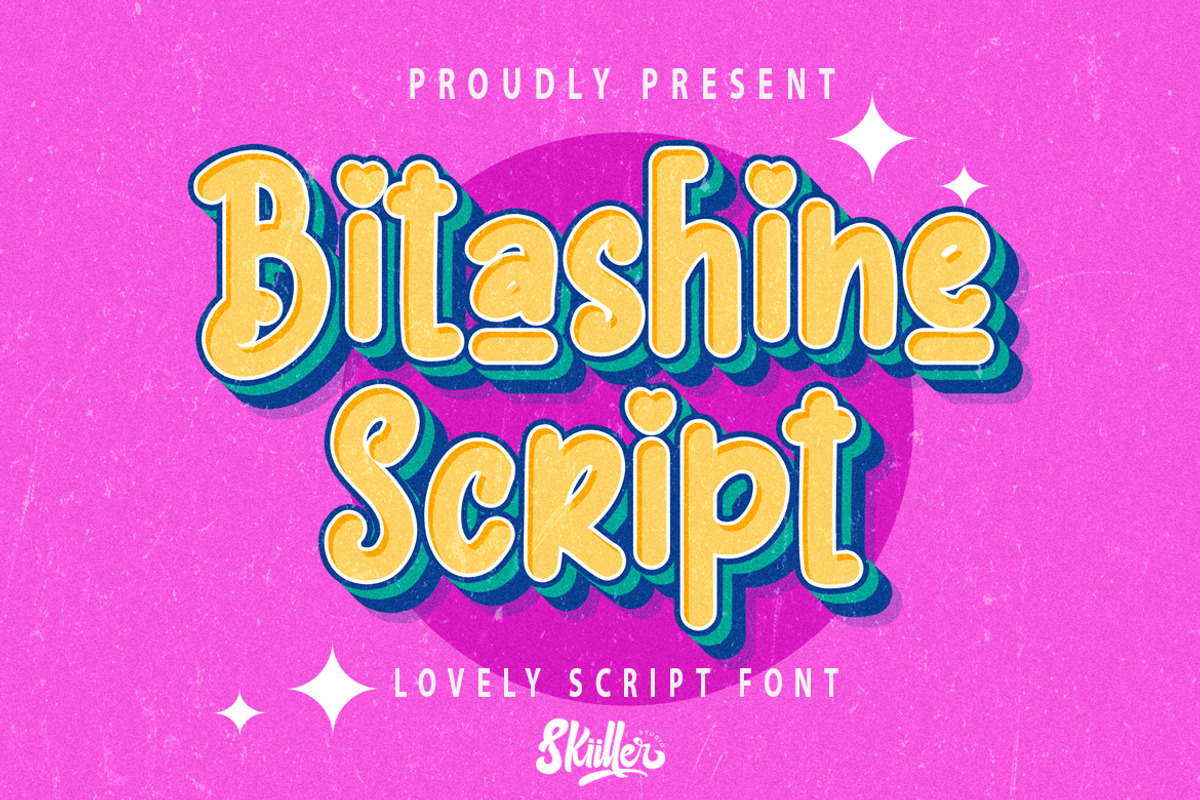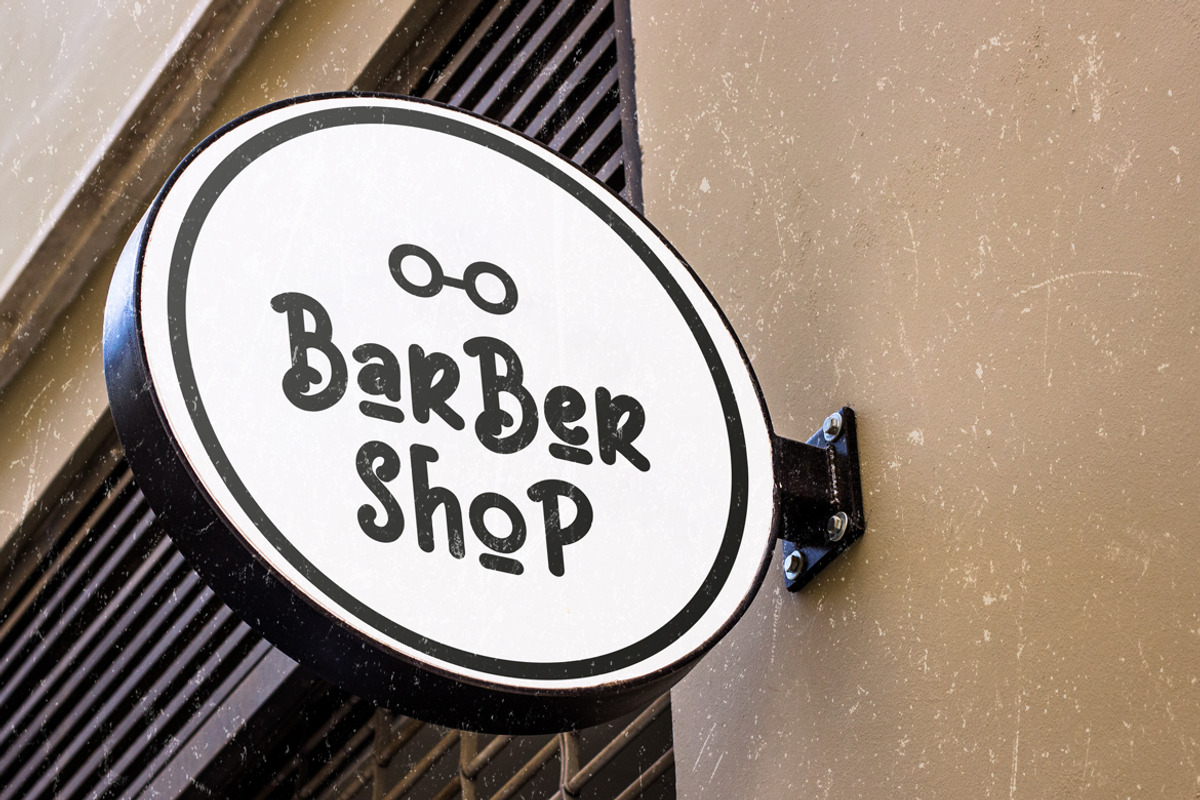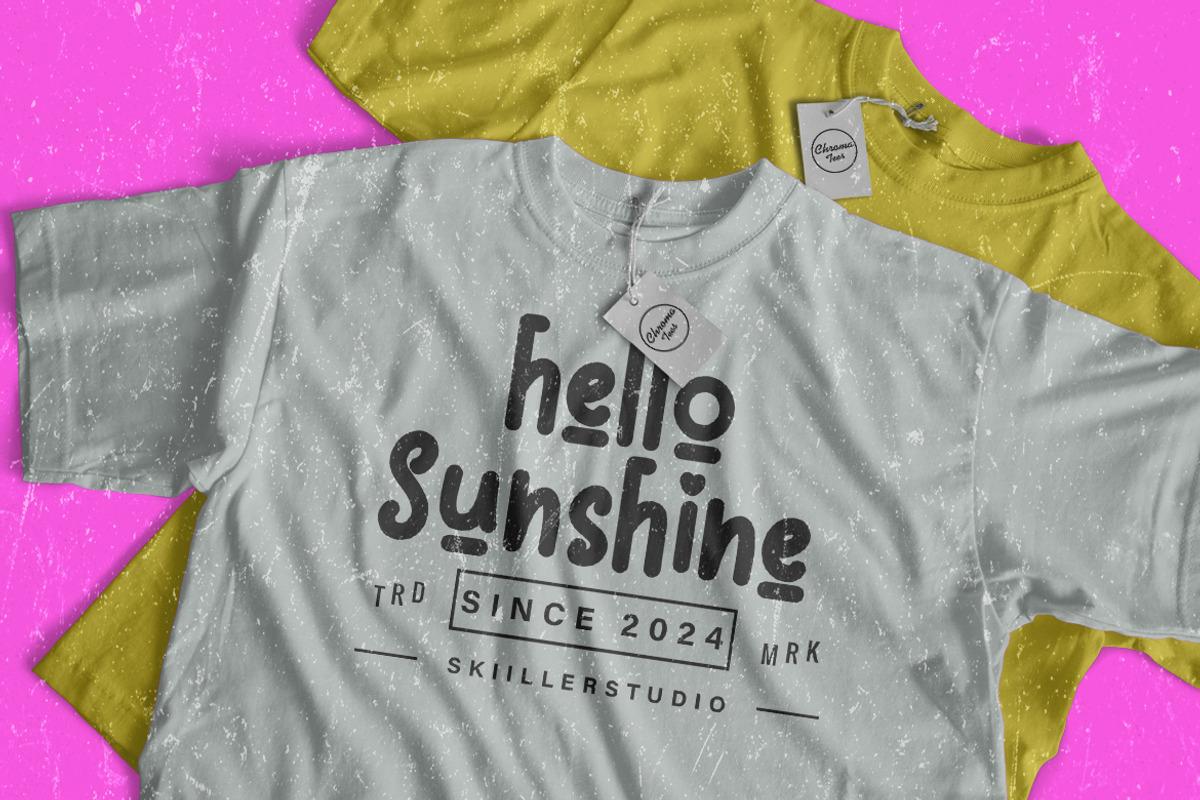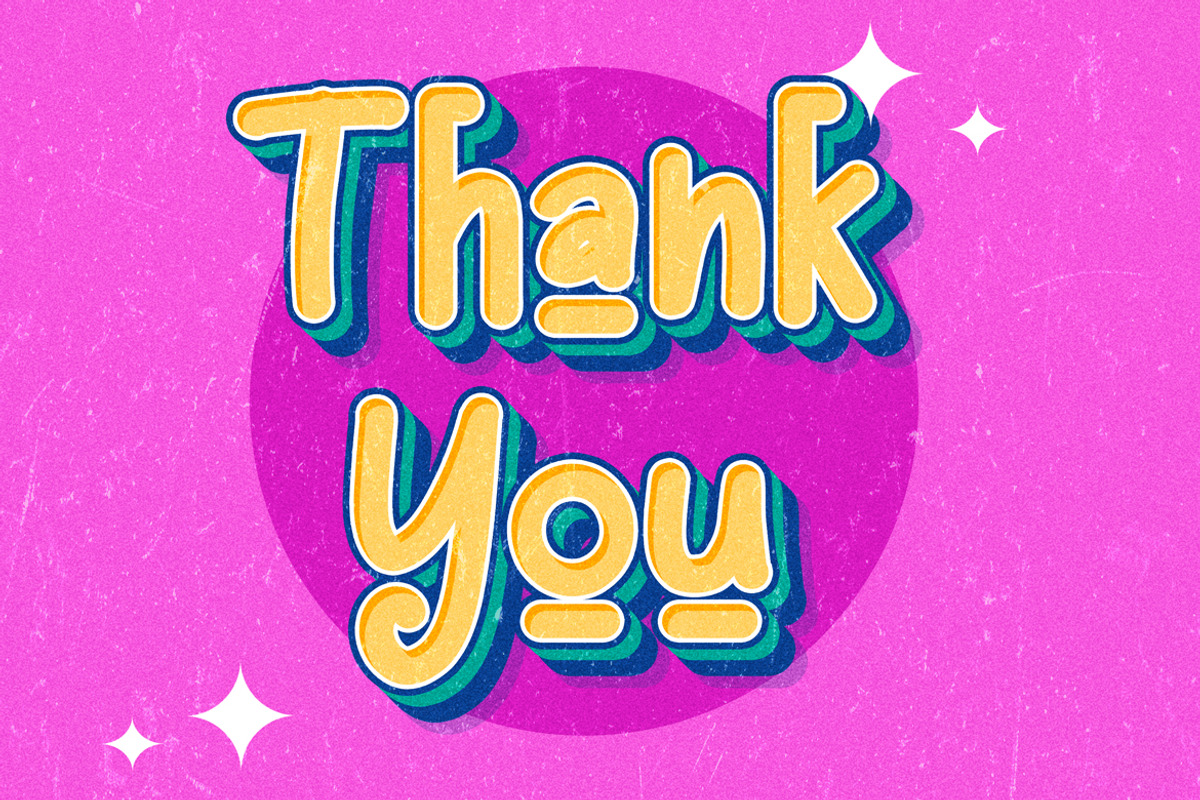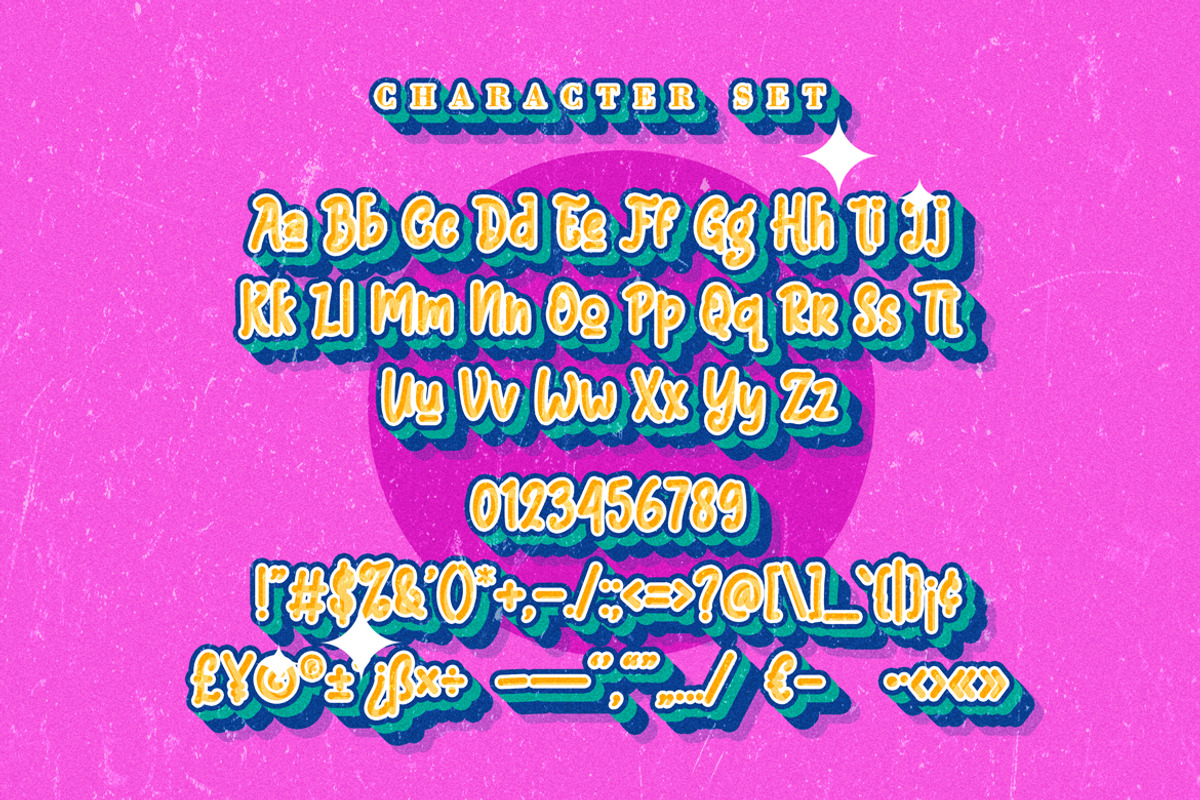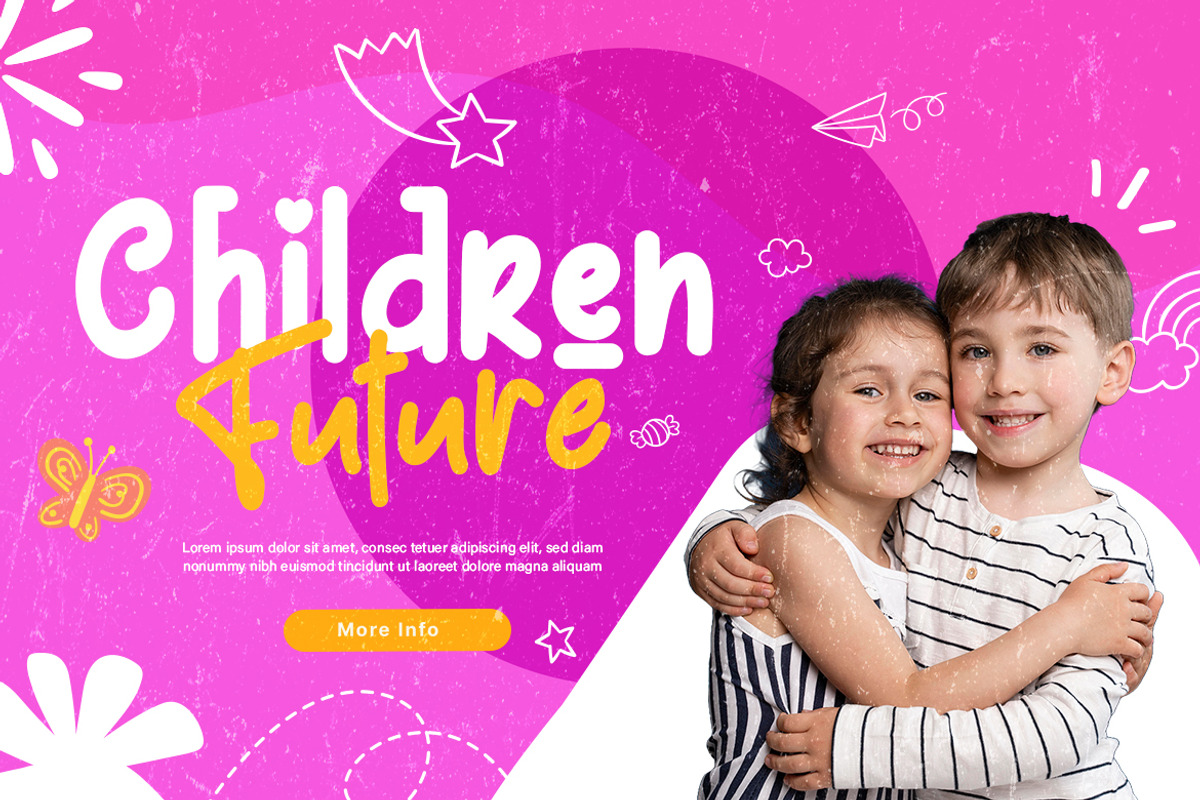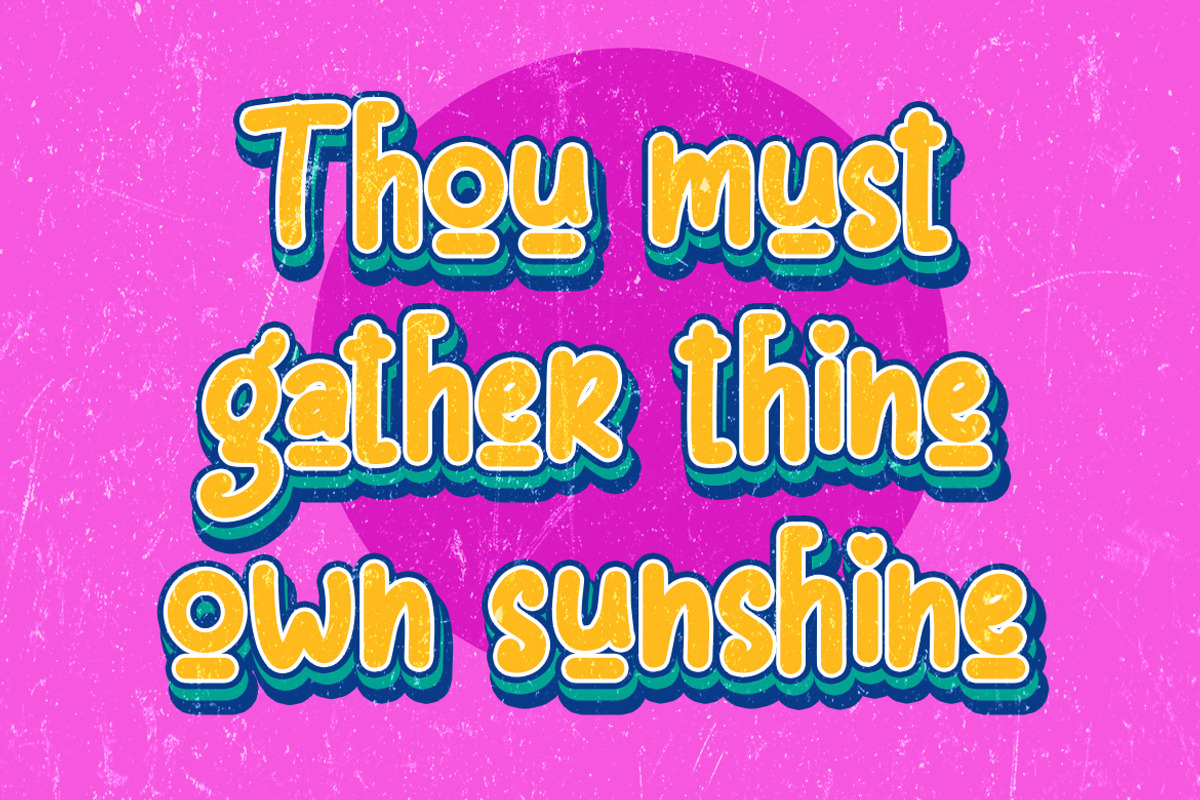
Bitashine Lovely Font
Bitashine script with a natural flow and beautiful style. Bitashine is perfect for invitation design projects, prewedding, branding, logos, wedding designs, social media posts, advertisements, product packaging, product design, labels, photography, watermarks, invitations, stationery, and any project that requires handwriting tastes .